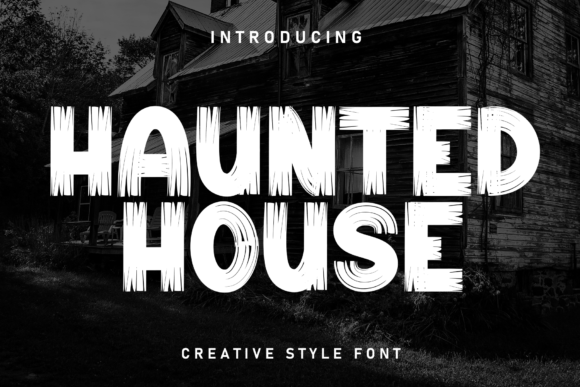
Unleash Your Dark Side with the Haunted House Font
Have you ever been working on a design project and suddenly, you get that spark of creativity? The kind of spark that makes you want to jump out of your seat and scream with excitement? For designers, those moments are what make the job worth it. And today, we’re about to unleash that same excitement with the introduction of the Haunted House Font.
This eerie yet captivating font is perfect for designers who want to add a touch of mystery and intrigue to their projects. From wall displays to wedding invitations, the Haunted House Font is sure to make a statement. Its versatility and unique design make it a valuable addition to any designer’s toolkit. Whether you’re working on a horror-themed project or just want to add a little bit of edge to your design, the Haunted House Font is the perfect choice.
Haunted House Font Key Features
- Font Family: Haunted House is a unique, hand-drawn font designed to evoke a spooky atmosphere.
- Character Count: Includes a wide range of characters, including uppercase and lowercase letters, numbers, and punctuation marks.
- Unique Characteristics: Features eerie, handwritten letterforms with subtle texture and imperfections, adding to its haunted atmosphere.
Haunted House Font Review
Overall, I’m underwhelmed by the Haunted House Font – but there are a few things that make it somewhat redeeming. ✨ Firstly, the spooky vibe is pretty on point. It’s perfect for Halloween or horror-themed projects. The font does have a sense of eeriness and foreboding, which is great for setting the right atmosphere.
- ✨ Perfect for Halloween or horror-themed projects
- ✨ Has a unique and eerie vibe
- ✨ Can be used to create a spooky atmosphere
However, there are a few limitations that make it hard to use in everyday design situations. ⚠️ Firstly, the font is quite limited in its usage – it’s mostly just a bunch of creepy letters and symbols. It’s not versatile enough to use for regular text. Additionally, the font is a bit too over-the-top – it’s perfect for a horror movie title, but might be distracting for body text.
- ⚠️ Limited usage – mostly just creepy letters and symbols
- ⚠️ Not versatile enough for regular text
- ⚠️ Might be too over-the-top for body text
Overall, I’d say the Haunted House Font is a fun, niche font that’s perfect for specific projects. But for everyday design, I’d look elsewhere.
The Haunted House Font is perfect for:
- Halloween-themed designs and decorations.
- Creepy typography and abandoned text.
- Spooky presentation titles and headings.
- Haunted house or horror movie posters.